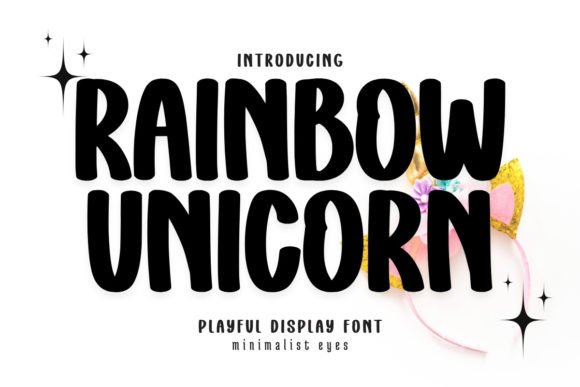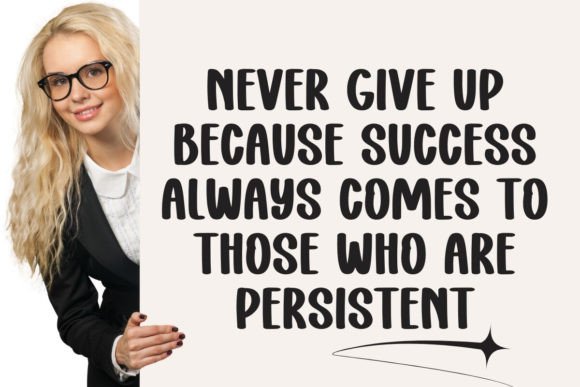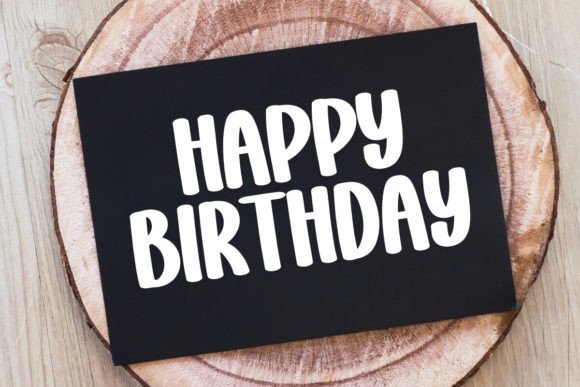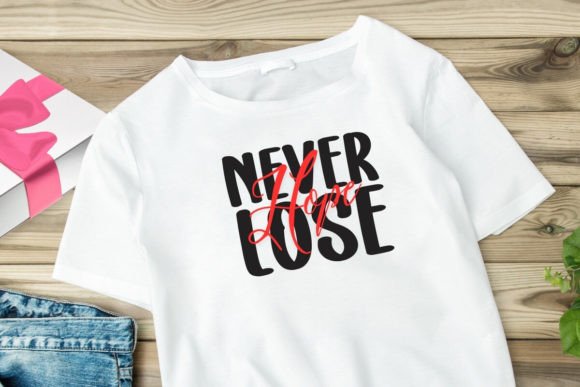
Rainbow Unicorn Font
About the Rainbow Unicorn Font
Experience the unique personality of Rainbow Unicorn Font, a font designed for impact. Rainbow Unicorn is a Playful and Beautiful Display font designed for clarity and readability. With its clean lines and balanced proportions, Rainbow Unicorn is versatile and suitable for various design projects, from digital interfaces to print materials. Its simplicity and modern appeal make it a practical choice for communication.
Rainbow Unicorn excels as a display font for headlines, logos, and short, impactful text in branding materials and posters. Its playful nature makes it ideal for children’s products, youth-oriented brands, and projects requiring a fun, approachable feel. However, its limited character set and relatively large x-height make it unsuitable for body text or lengthy paragraphs. Avoid using it in UI applications where readability at smaller sizes is critical.
Pairing Rainbow Unicorn with a clean sans-serif like Open Sans for body copy provides excellent contrast and readability. For a more sophisticated look, consider pairing it with a classic serif like Garamond for a balanced, elegant feel. Alternatively, a geometric sans-serif such as Futura can create a modern, slightly retro aesthetic.
The font’s core personality is undeniably playful and friendly, yet possesses a modern clarity that prevents it from feeling childish. Its balanced proportions ensure that its cheerful character remains legible and effective, even at larger sizes.
Rainbow Unicorn Font Usage Examples
Rainbow Unicorn Font Example